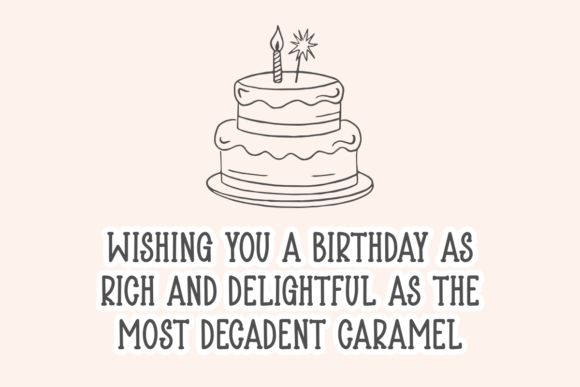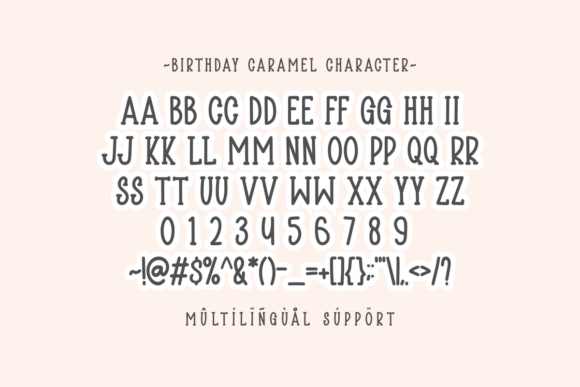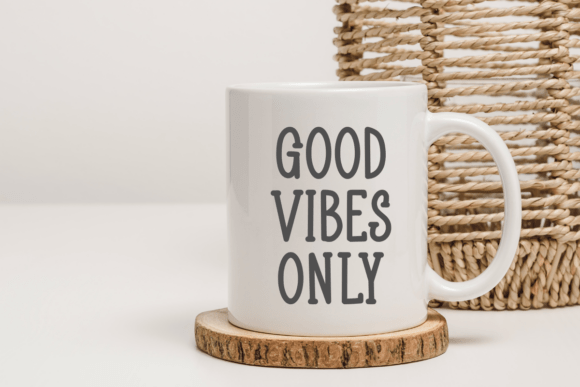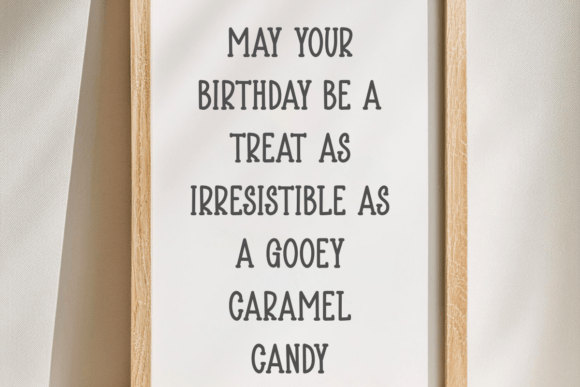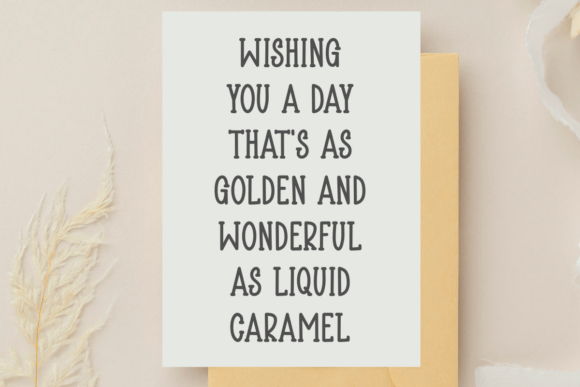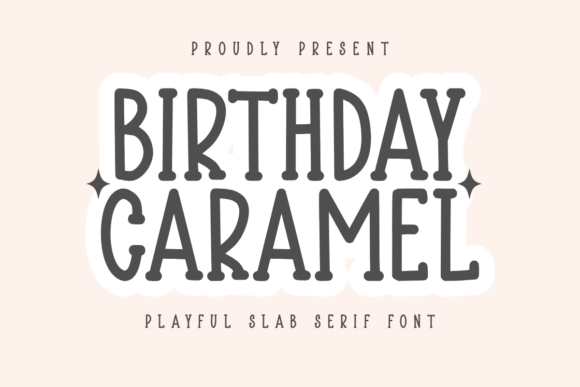
Introducing Birthday Caramel Font: The Sweetest Addition to Your Design Collection
Are you tired of using the same old fonts for your creative projects? Look no further! We’re excited to introduce the Birthday Caramel Font, a playful slab serif font that’s sure to bring a cheerful and friendly vibe to your designs. With its rounded edges and bold presence, this font is perfect for a variety of projects, from birthday invitations to product packaging.
What is Birthday Caramel Font?
Birthday Caramel is a unique and eye-catching font that’s designed to make your designs stand out. Its slab serif style gives it a sturdy and dependable feel, while its rounded edges add a touch of playfulness and whimsy. This font is perfect for designers and crafters who want to add a bit of fun and personality to their work.
Perfect for Birthday Invitations and Kids’ Party Decor
As its name suggests, Birthday Caramel Font is ideal for birthday-themed designs. Whether you’re creating invitations, party decorations, or gift tags, this font is sure to add a celebratory touch to your projects. Its bold and cheerful presence makes it perfect for kids’ party decor, and its playful vibe is sure to delight both kids and adults alike.
Beyond Birthday Invitations: Other Uses for Birthday Caramel Font
While Birthday Caramel Font is perfect for birthday-themed designs, its uses don’t stop there. This versatile font can be used for a wide range of creative projects, including:
- Product packaging: Add a touch of personality to your product packaging with Birthday Caramel Font. Its bold and playful presence is sure to make your products stand out on store shelves.
- Greeting cards: Whether you’re creating birthday cards, thank-you cards, or holiday cards, Birthday Caramel Font is a great choice. Its friendly and approachable vibe makes it perfect for conveying warm and fuzzy feelings.
- Posters: Use Birthday Caramel Font to create eye-catching posters for events, promotions, or announcements. Its bold presence is sure to grab attention and draw people in.
Why Choose Birthday Caramel Font?
So why choose Birthday Caramel Font for your design projects? Here are just a few reasons:
- Unique and eye-catching: Birthday Caramel Font is a one-of-a-kind font that’s sure to make your designs stand out from the crowd.
- Playful and cheerful: This font has a fun and playful vibe that’s perfect for adding a touch of personality to your designs.
- Versatile: Birthday Caramel Font can be used for a wide range of creative projects, from birthday invitations to product packaging.
- Easy to read: Despite its playful presence, Birthday Caramel Font is easy to read and understand, making it perfect for body text and headlines.
Tips for Using Birthday Caramel Font
Here are a few tips for getting the most out of Birthday Caramel Font:
- Use it sparingly: While Birthday Caramel Font is perfect for headlines and titles, it can be overwhelming if used for body text. Use it sparingly to add emphasis and visual interest to your designs.
- Pair it with other fonts: Birthday Caramel Font pairs well with a variety of other fonts, from simple sans serifs to elegant scripts. Experiment with different pairings to find the one that works best for your design.
- Experiment with colors: Birthday Caramel Font looks great in a variety of colors, from bright and bold to soft and pastel. Experiment with different colors to find the one that works best for your design.
In conclusion, Birthday Caramel Font is a playful and versatile font that’s perfect for designers and crafters who want to add a touch of personality to their creative projects. With its rounded edges and bold presence, this font is sure to bring a cheerful and friendly vibe to your designs. Whether you’re creating birthday invitations, product packaging, or greeting cards, Birthday Caramel Font is a great choice. So why wait? Download Birthday Caramel Font today and start adding a touch of sweetness to your designs!